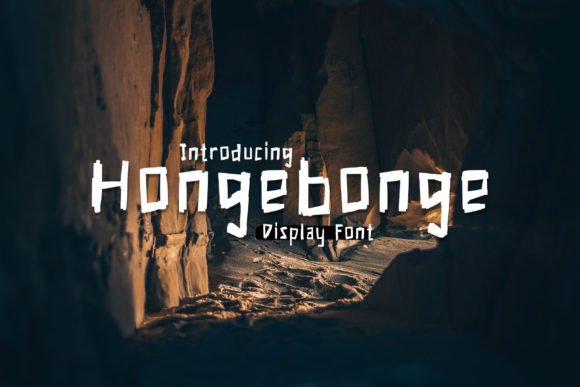
Welcome to the world of Hongebonge, a display font that invites you to dive into the depths of nostalgia while embracing contemporary aesthetics. With its retro elegance and timeless charm, Hongebonge is the perfect font for designers seeking to infuse their creations with a touch of authenticity and history.
Born from our passion for vintage handwriting styles, Hongebonge captures the essence of handwritten posters, billboards, and retro designs. Through the skillful combination of repeated marker strokes, this font exudes an air of authenticity, reminiscent of an era where individuality and craftsmanship reigned supreme.
By choosing Hongebonge, you're not just downloading a font; you're embarking on a journey through time. Its carefully crafted characters will transport you to a bygone era, where every stroke tells a story and every word carries weight.
But Hongebonge is more than just a nostalgic throwback. It's a font that blends the old with the new, seamlessly merging the charm of the past with the vibrancy of the present. With Hongebonge, you can create designs that resonate with audiences of all generations, appealing to those who appreciate the beauty of classic typefaces while catering to those who crave a modern touch.
Whether you're designing posters, billboards, social media graphics, or website layouts, Hongebonge is the perfect choice for adding a touch of vintage elegance to your work. Its versatility extends to a wide range of projects, from retro-themed designs to contemporary layouts seeking a timeless aesthetic.